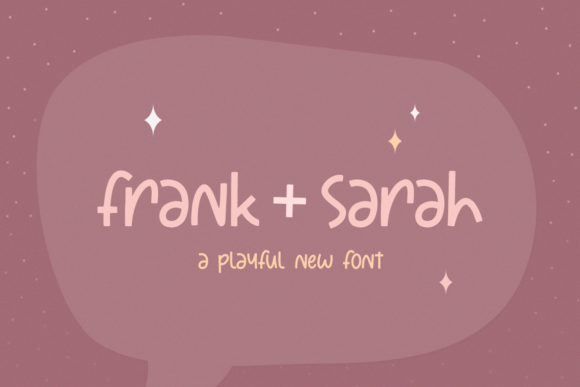
Introducing Frank + Sarah Font: A Delightful Display Font for Your Creative Journey
Embark on a delightful adventure with Frank + Sarah Font, a display font that captures the essence of joy and playfulness. Crafted by the talented Salt and Pepper Fonts, this charming font family is designed to transform your creative projects into captivating expressions.
With its sweet and casual demeanor, Frank + Sarah Font exudes a welcoming aura that draws readers in. Each meticulously crafted letter carries a touch of whimsy, evoking a sense of nostalgia and warmth. Whether you're designing invitations, crafting logos, creating social media graphics, or adding a personal touch to your blog posts, Frank + Sarah Font will infuse your work with a unique charm that resonates with your audience.
Immerse yourself in the world of Frank + Sarah Font and discover a versatile companion for your creative endeavors. Its playful nature makes it ideal for children's books, educational materials, and playful branding. Its elegant curves and smooth lines add a touch of sophistication to wedding invitations, greeting cards, and personal stationery. Frank + Sarah Font seamlessly adapts to a variety of design styles, from classic and vintage to modern and contemporary.
Unleash your creativity and let Frank + Sarah Font guide you towards captivating designs. Its user-friendly format makes it accessible to both seasoned designers and those just starting their creative journey. Experience the joy of transforming ordinary text into extraordinary expressions with Frank + Sarah Font.